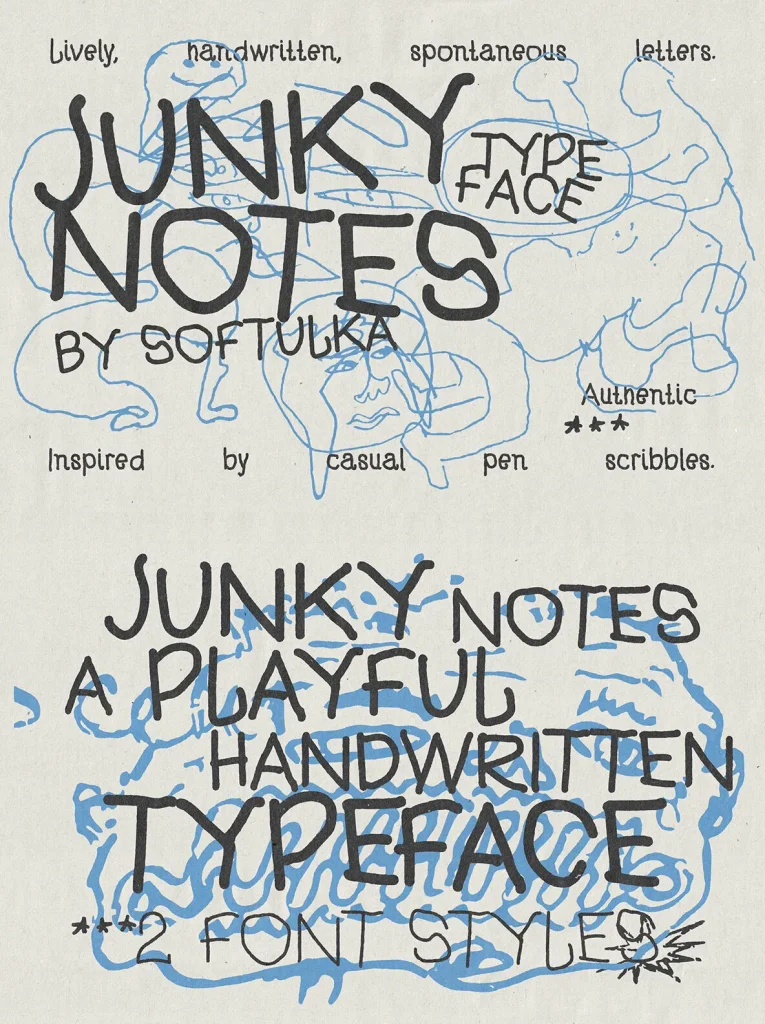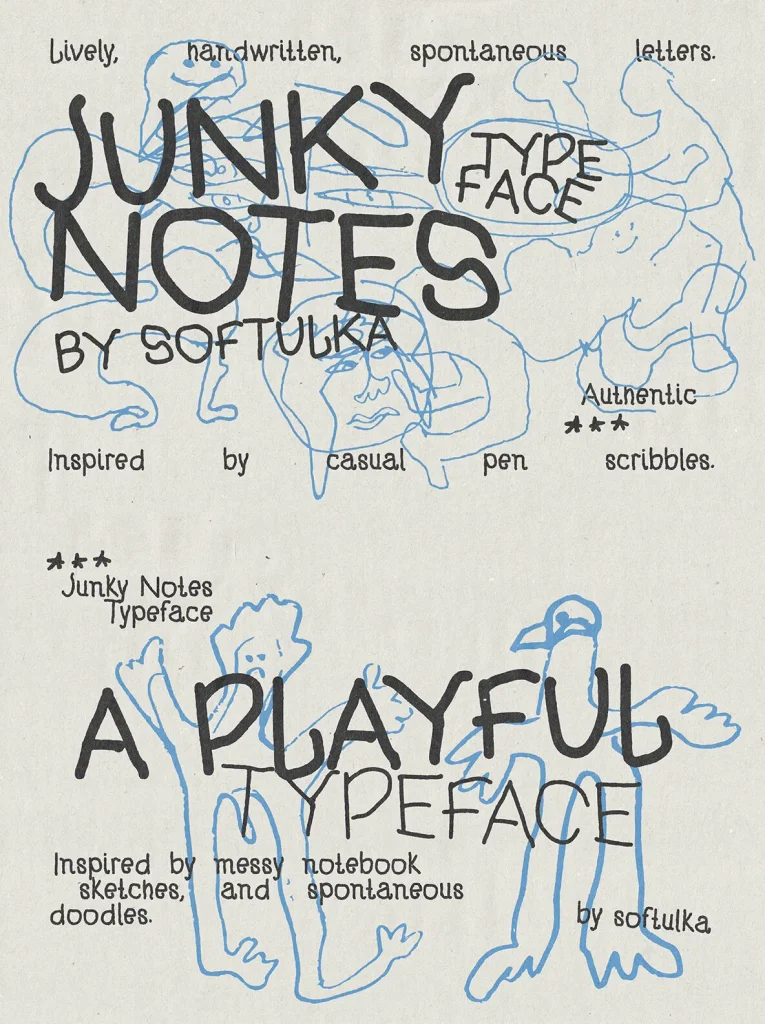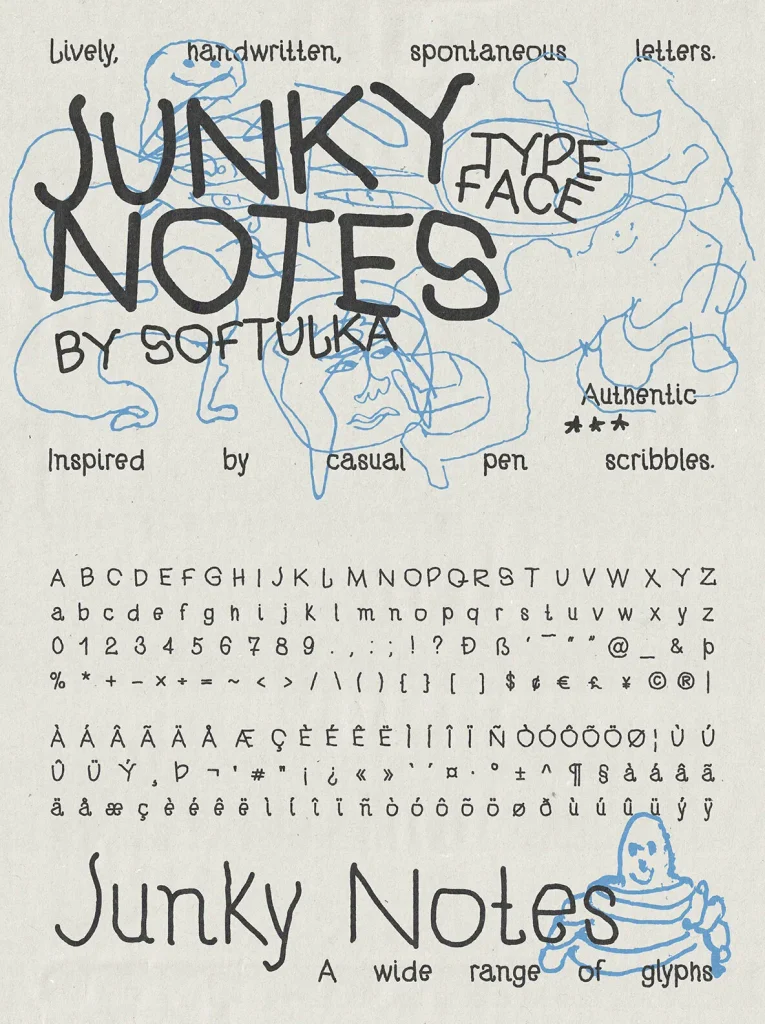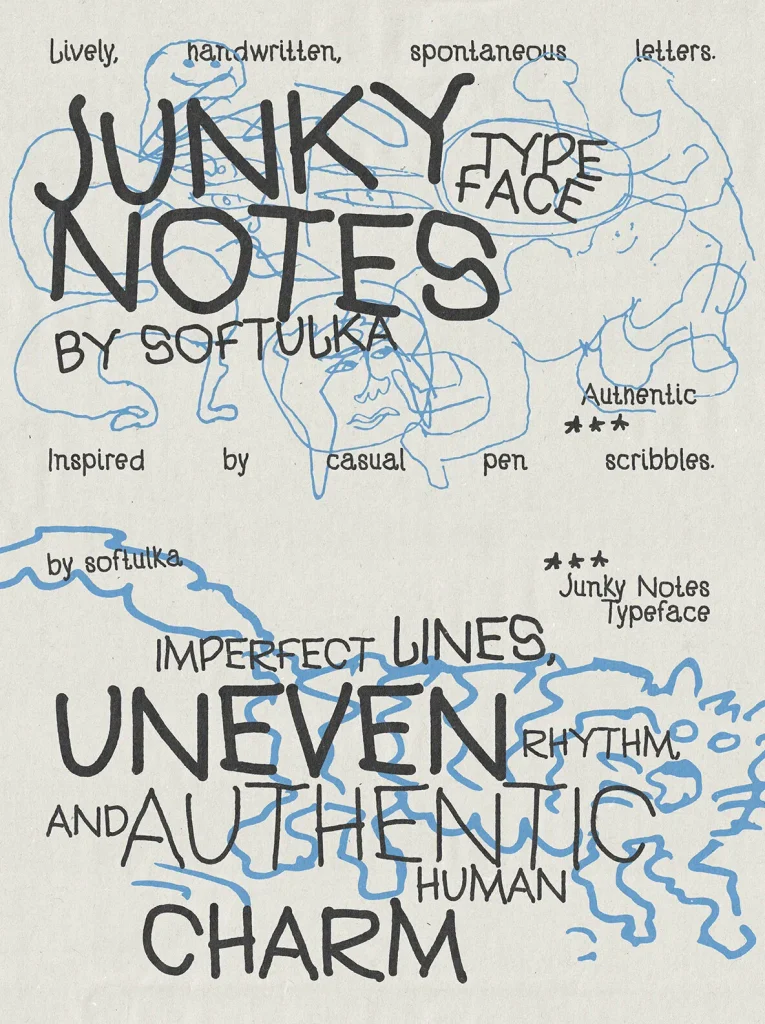
Playful Handwritten Typeface — Notebook Mischief
A playful handwritten typeface inspired by the free, unpolished energy of messy notebook sketches, spontaneous doodles, and casual pen scribbles. Its imperfect lines and uneven rhythm give the design an authentic human charm, with a raw and expressive personality that feels immediate on the page.
This handwritten font suits visual work that needs warmth, movement, and a personal touch. Use it where a rigid typographic voice would feel too formal, from lively brand materials to editorial layouts with a more casual creative tone.
Ideal Uses
Posters
Branding
Packaging
Social media graphics
Children’s projects
Journals
Creative editorial layouts